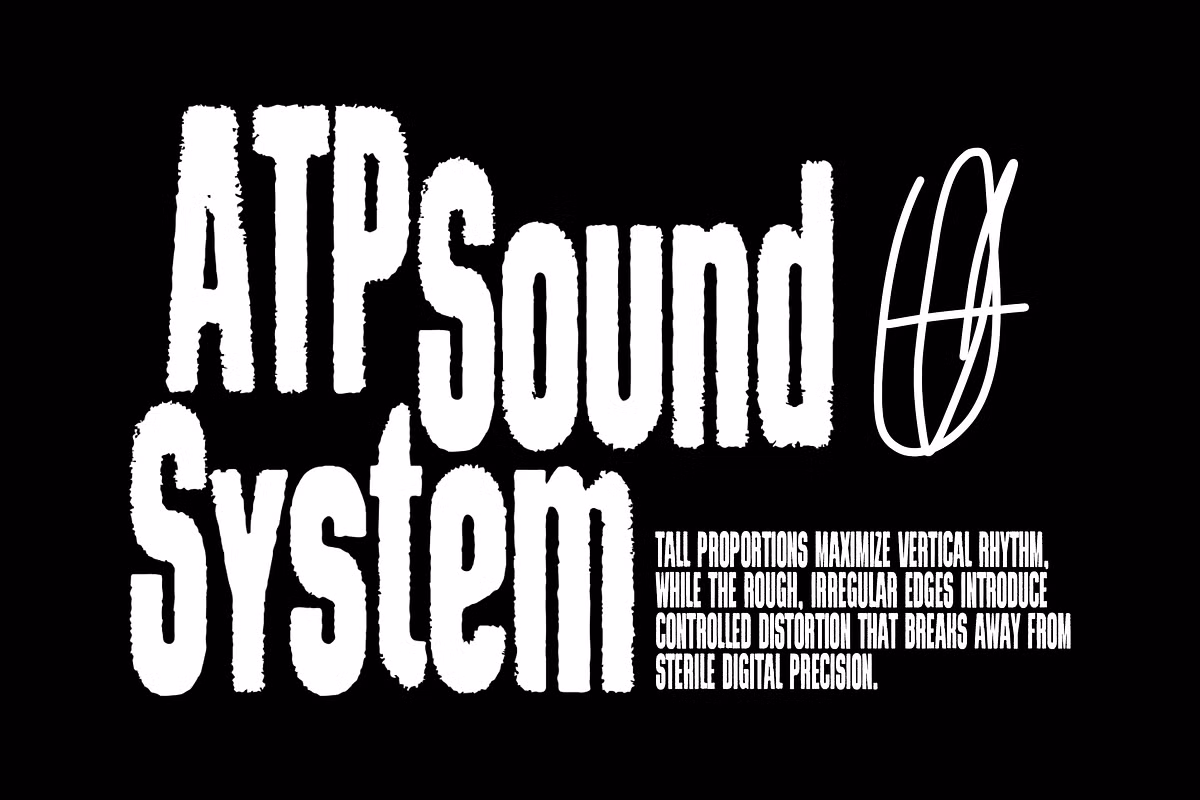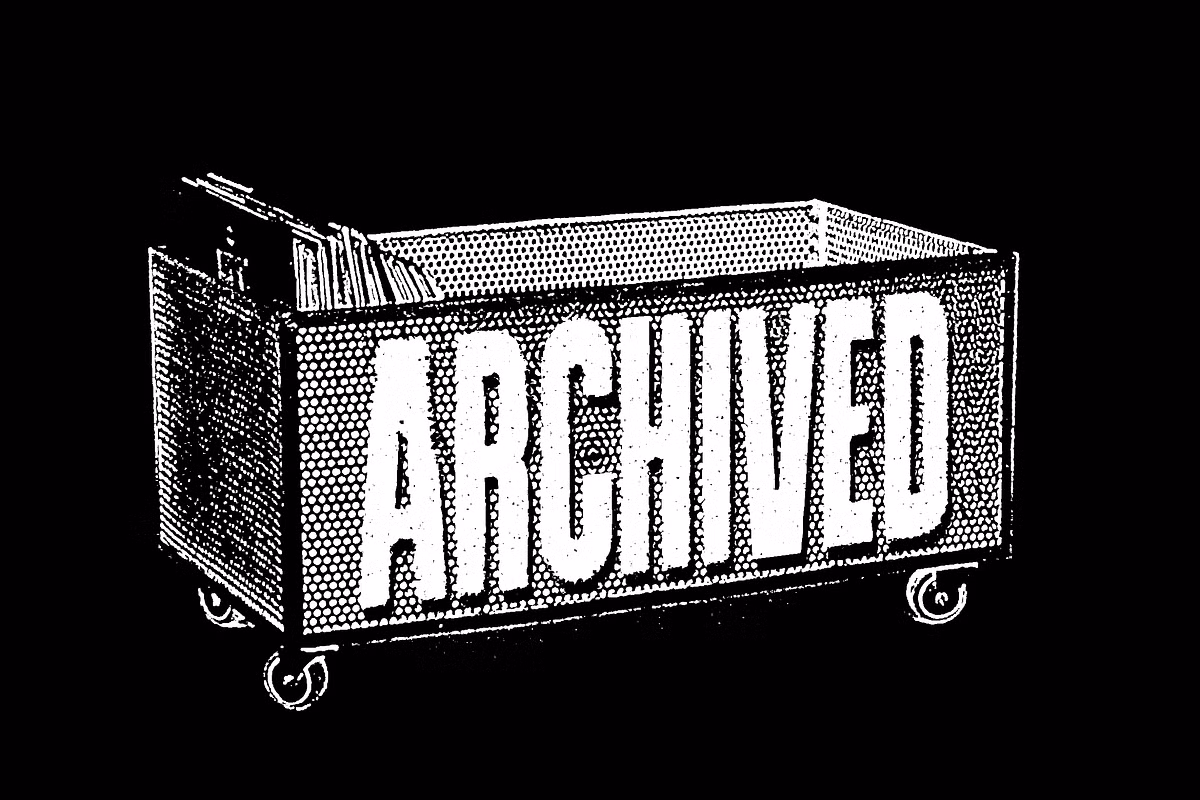
Global Premiere: A Bold Display Typeface
Global Premiere is a font that really grabs your attention. It’s a display font, which means it’s meant to be used for big, bold headlines that make a statement. What’s cool about this font is its unique shape – it’s tall and narrow, so it’s perfect for fitting into small spaces without losing any of its impact. The edges of the font are also really rough and textured, which gives it a raw, expressive feel. This font isn’t just about being easy to read, it’s about making a big impression and adding some personality to your design. Whether you’re working on a project that needs a bold headline or just want to add some visual interest, Global Premiere is a great choice. It’s all about creating a high-impact look that will really make your design stand out.
Design Style of Global Premiere
Global Premiere has a really unique look that’s inspired by old-school printing and handmade stuff. It’s different from all the super sleek and perfect fonts out there. Instead, it celebrates being a little rough around the edges, which gives it a lot of character. The imperfections and distressed details make it feel more human and authentic, which is perfect for creatives who want to add some personality to their work. This approach to design makes it easier to express yourself in a way that feels true to who you are, and that’s really valuable for people who want to stand out from the crowd.
Aesthetic Appeal
The way Global Premiere looks is really powerful because it can make people feel things and make them think something is important. The letters are tall and close together, which makes them stand out and get attention right away. This makes it perfect for big titles or headings that need to be noticed fast. If you’re making posters, ads, or things for the internet, this font’s strong style will help your message stick with the people you’re trying to reach. It’s great for getting your point across and making sure people remember what you’re saying.
Versatility Across Mediums
Global Premiere is really flexible and works well in lots of different areas. It looks great in both print and digital formats, which makes it a popular choice for designers from all sorts of backgrounds. Whether you’re making logos, social media posts, or packaging, this font can change to fit your needs without losing its bold look. It’s a great option for anyone who wants a font that can do it all.
Character Sets and Features
Global Premiere comes equipped with an extensive character set that includes uppercase and lowercase letters, numerics, punctuation, and multilingual support. This wide range of characters enables designers to use the font in diverse contexts, enhancing the typeface’s applicability in various languages and styles.
- Uppercase Letters: Perfect for headlines and logos that demand attention.
- Lowercase Letters: Complement the uppercase letters for body text or subheadlines.
- Numerics: Ideal for any project requiring numbers, such as pricing or statistics.
- Punctuation: Full set included for comprehensive text composition.
- Multilingual Support: Enables use across different languages, broadening its usability.
Use Cases for Global Premiere
Global Premiere is designed for projects that require attitude, contrast, and presence rather than neutrality. Here are some specific use cases that highlight the font’s capabilities:
- Create amazing posters for your events with Global Premiere. This tool helps you make posters that really stand out, with big and bold headlines that grab people’s attention.
- Brand Identity: The font’s strong presence makes it an excellent choice for logos and branding materials that need to convey confidence.
- Ads really grab your attention with their striking visuals, making them perfect for getting your message across quickly.
- Website Headers: Create impactful website headers that convey your brand’s personality while maintaining readability.
- Fashion or Music Promotions: Global Premiere fits well within the creative industries, making it a popular choice for fashion lookbooks and music album covers.
When you’re looking to make your designs really stand out with Global Premiere, try combining it with other fonts that complement it well. This can really make a big difference in the overall look and feel of your project. Here are a few suggestions to get you started.
- When choosing fonts, it’s a good idea to pair Global Premiere with a simple, clean font like Montserrat or Open Sans for the main text. This creates a nice balance and makes the text easier to read. The clean lines of these fonts work well with the more decorative Global Premiere, making them a great team.
- Serif Fonts: Combine it with a serif font like Merriweather for a classic and sophisticated look that still feels modern.
- Script Fonts: For a more dynamic design, try pairing Global Premiere with a flowing script font like Pacifico to add a touch of elegance and creativity.
In today’s world, pictures and videos are everything. That’s why Global Premiere is a great font to use when you want to make a big impression. It has a lot of different characters and a unique style that works well in lots of different situations. Whether you’re making headlines that grab people’s attention or creating a brand that stands out, Global Premiere is a great choice. It’s a font that’s full of energy and personality, and it can help your designs really pop. So why not give it a try and see what you can create with it? With its bold and expressive style, Global Premiere is perfect for making a statement and getting your message across. It’s a valuable tool for any designer, and it can help you take your projects to the next level.